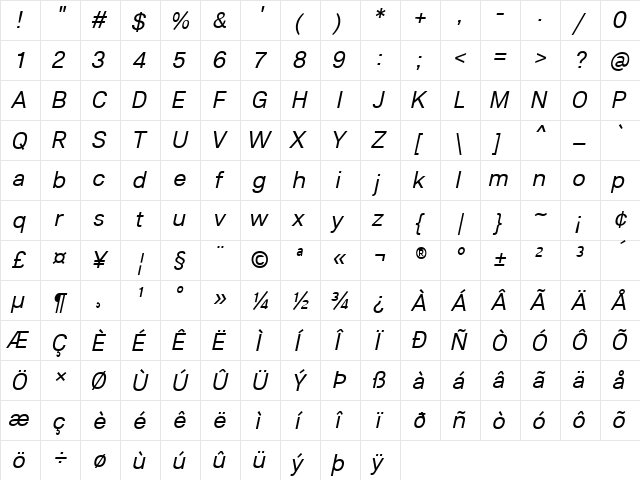
Lunchtype23 Italic
Design Context for Lunchtype23 Typeface
Lunchtype23 is a composed and adaptable typeface that performs quietly and consistently across a wide range of design contexts. The slanted form adds forward momentum and visual energy.
Pro Tip: Use Lunchtype23 for emphasis, pull quotes, and subheadings where its slanted energy can add rhythm to the layout.